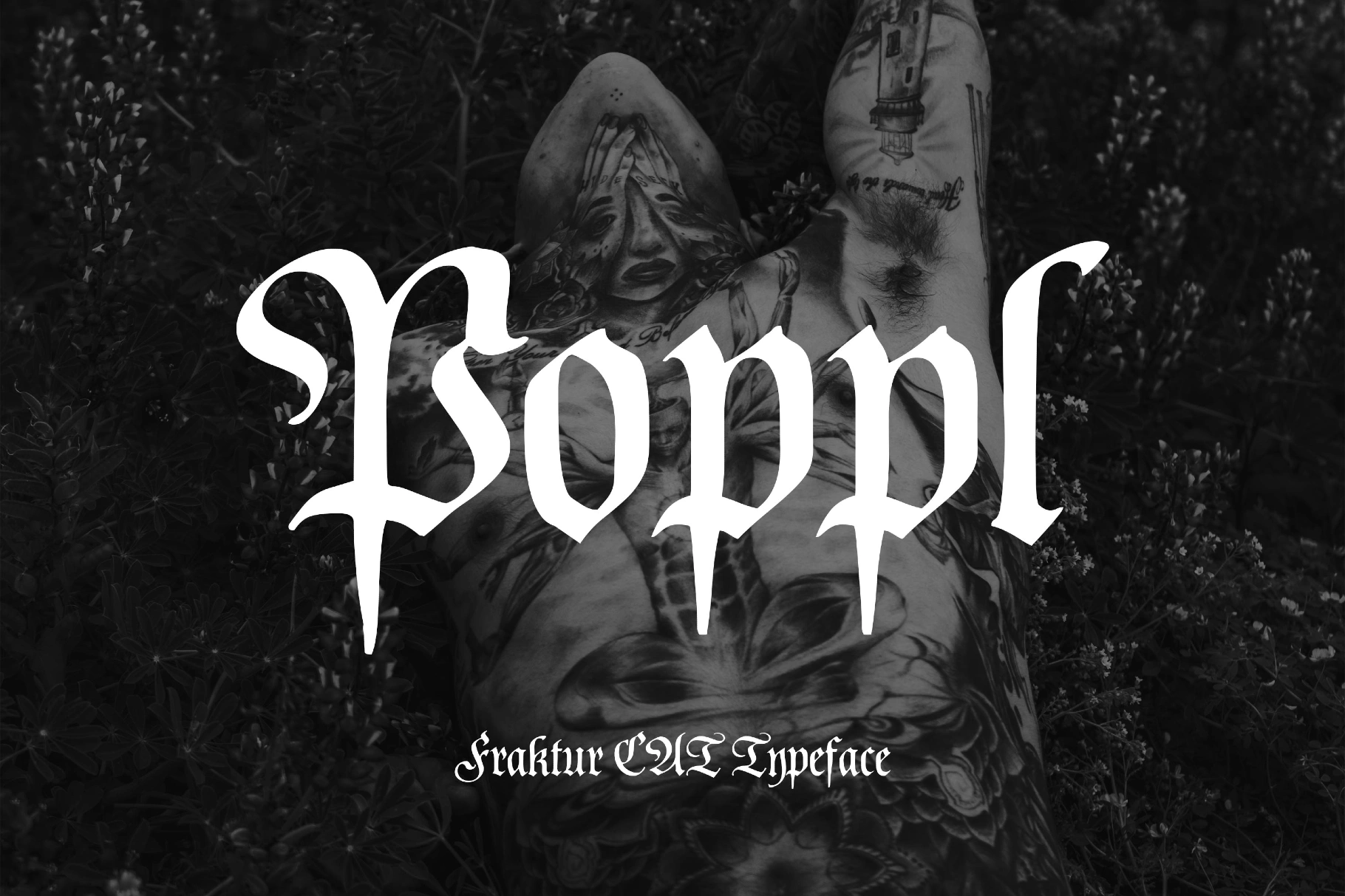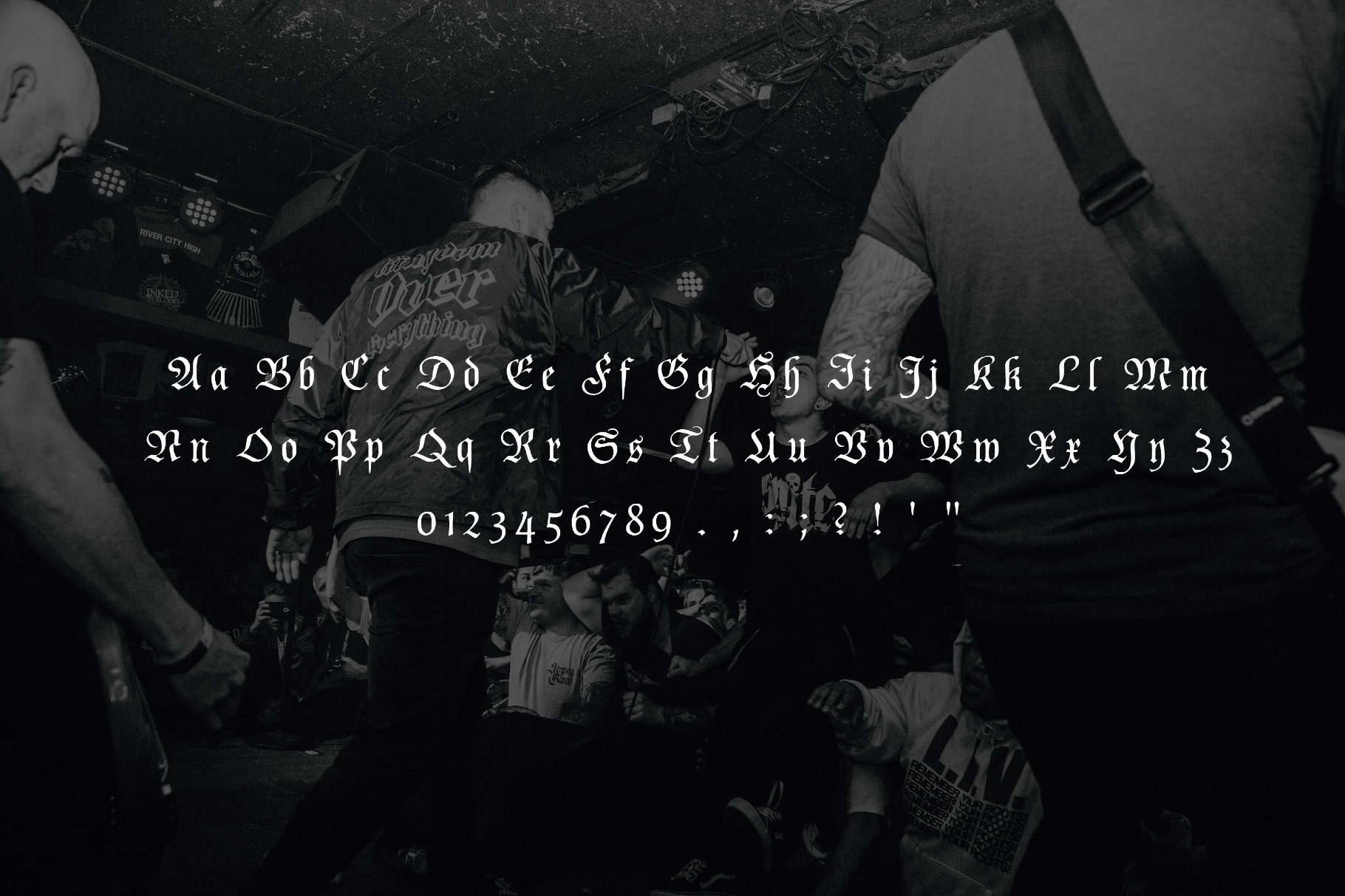
Poppl Fraktur CAT — Gothic Font
The font delivers capitals with dramatic flourishes and tapered spurs. The lowercase is compact and angular, completing the gothic presence. And the pointed terminals go for a ceremonial weight.
Poppl Fraktur is suited for book jackets and title pages, brewery and distillery labels, certificates and diplomas, medieval-themed menus, heavy-music album art, esports crests and team wordmarks, tattoo logotypes, festival posters, heritage packaging, and more.